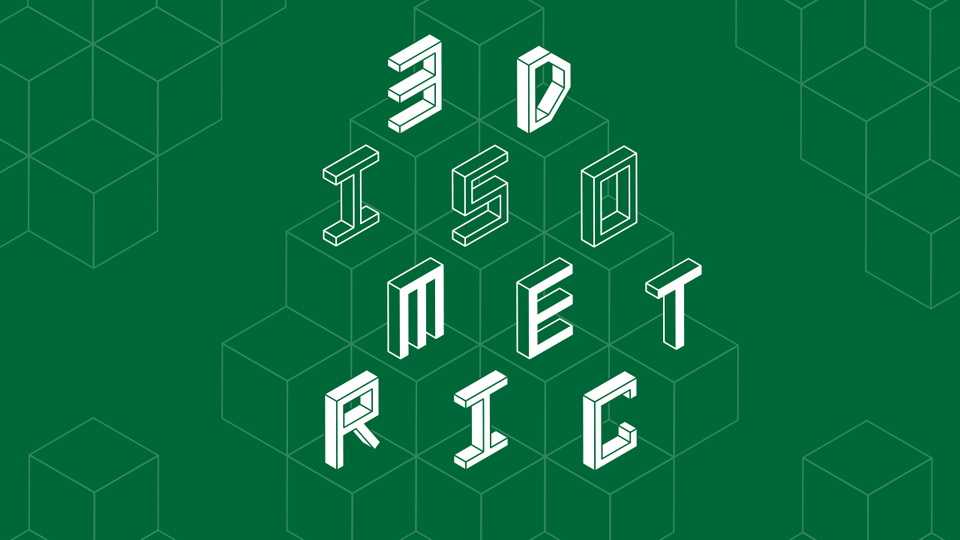
Download 3D Isometric font, an isometric display typeface with 3 styles. 3D Isometric font is perfect for bold statements in identity design, web design, games, posters and other artworks.